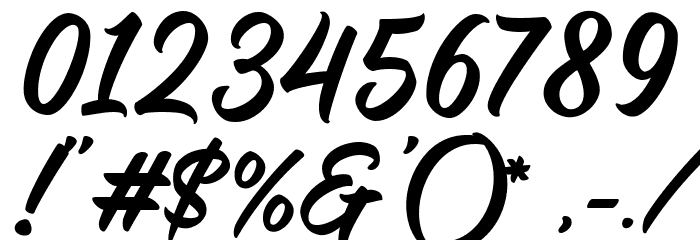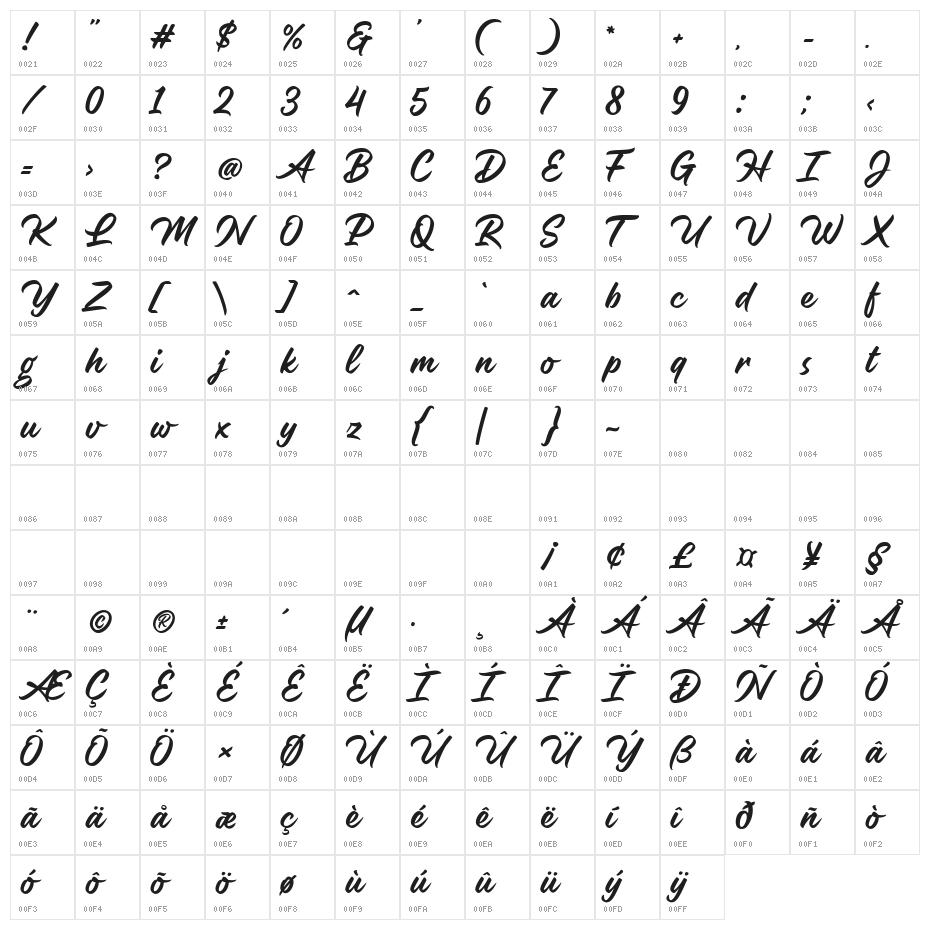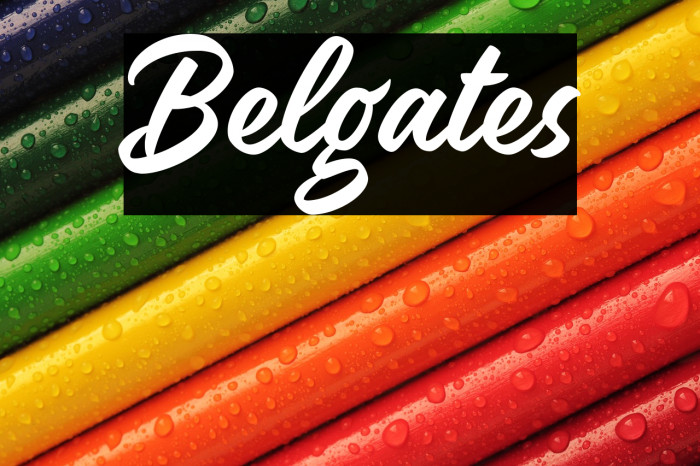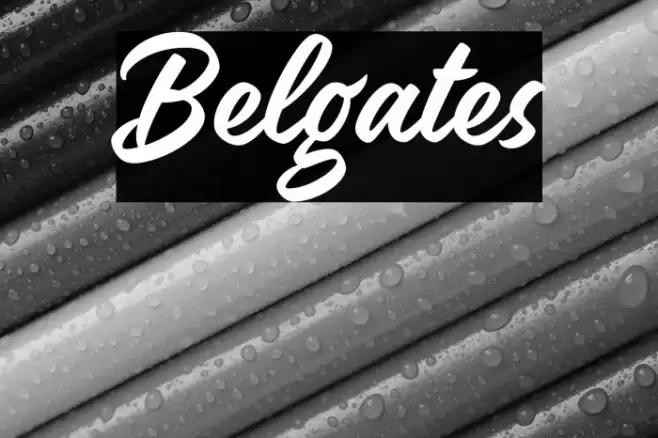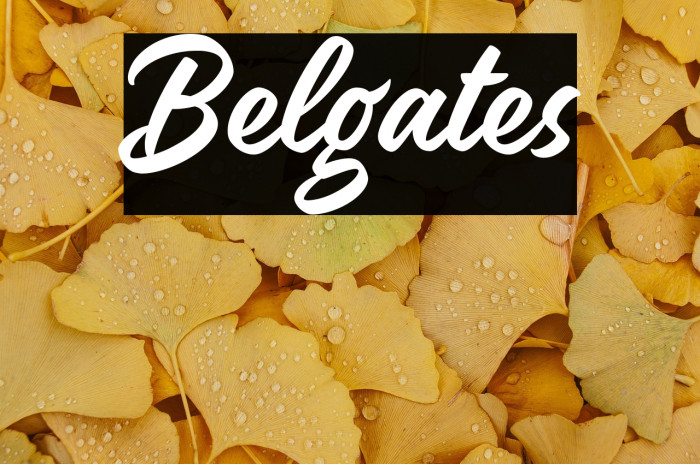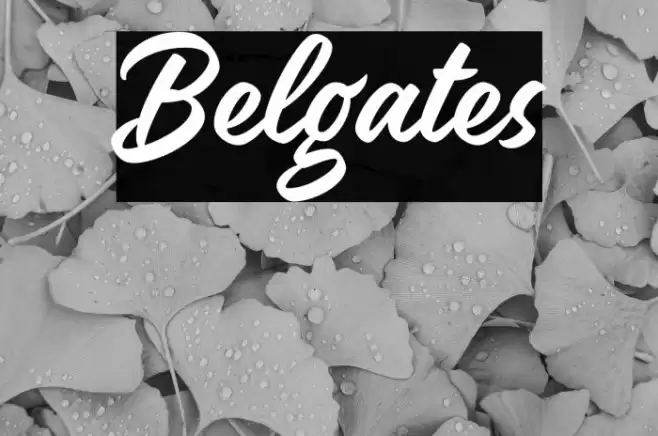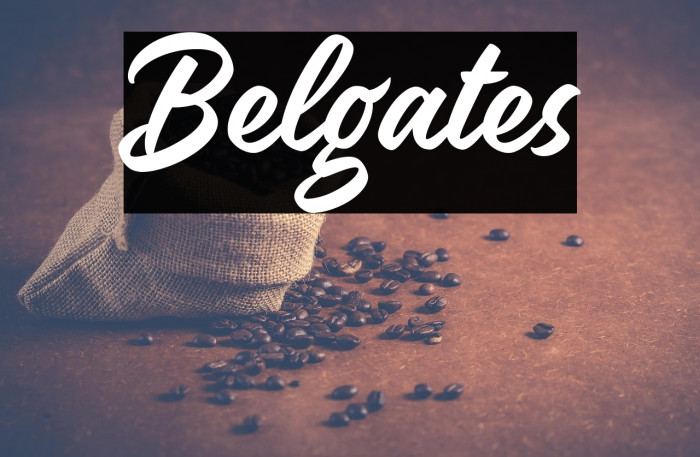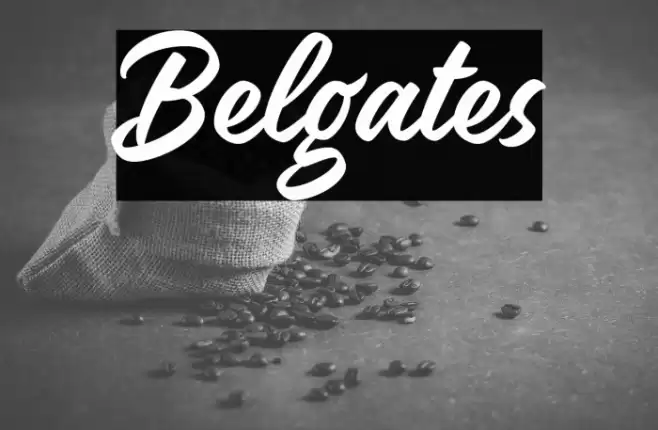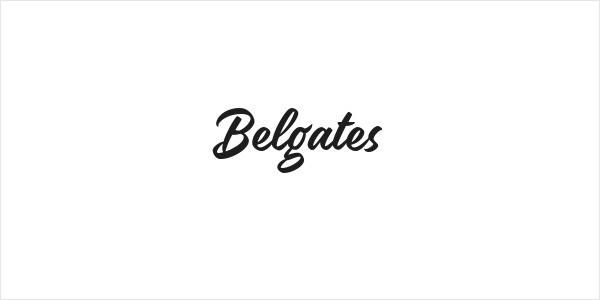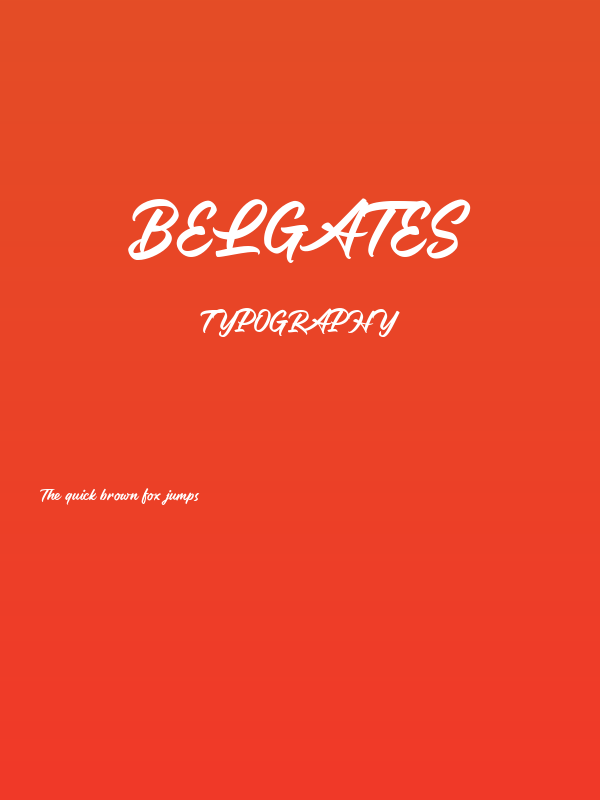
Belgates Font
This font showcases a bold, cursive style with a dynamic and flowing appearance. The uppercase letters are elegantly slanted, giving a sense of movement and fluidity. The lowercase letters maintain a consistent style, complementing the uppercase with smooth curves and connected strokes. The numerals are bold and slightly italicized, matching the overall cursive theme. Special characters are creatively designed, adding a playful touch to the font. The thick strokes and high contrast between thick and thin lines enhance its readability while maintaining a decorative flair.